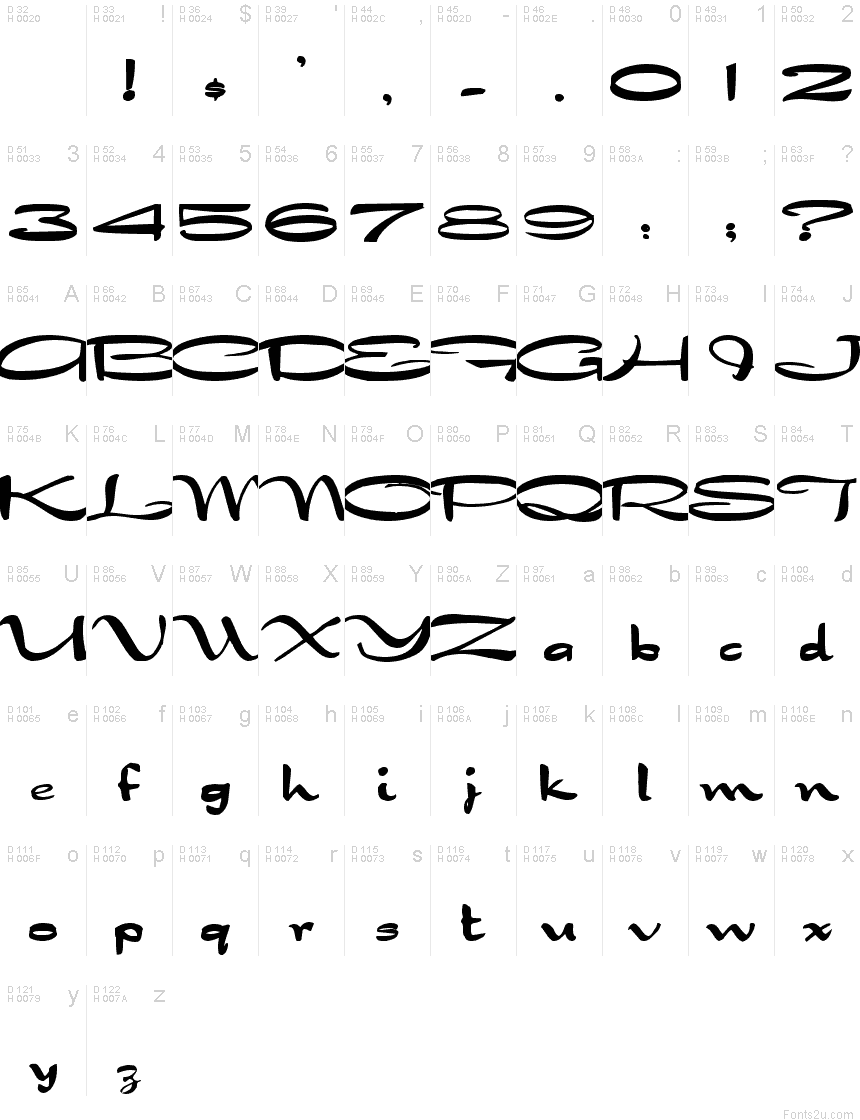
DragonWick Bold
DragonWick Bold font by David Rakowski is a free calligraphy typeface in the DragonWick family. It writes with a bold, inky swagger—wide brush strokes, sharp flicks, and a slightly wild rhythm that feels hand-painted rather than polished. That rugged texture gives words a spellbook vibe without turning illegible.
Using DragonWick Bold works beautifully for fantasy book covers, RPG titles, tabletop character sheets, game logos, tavern menus, Renaissance-fair posters, tattoo-style graphics, and gritty band merch. Let it breathe at larger sizes so the strokes stay crisp, then pair this free font with a restrained sans for body text to keep the page grounded.